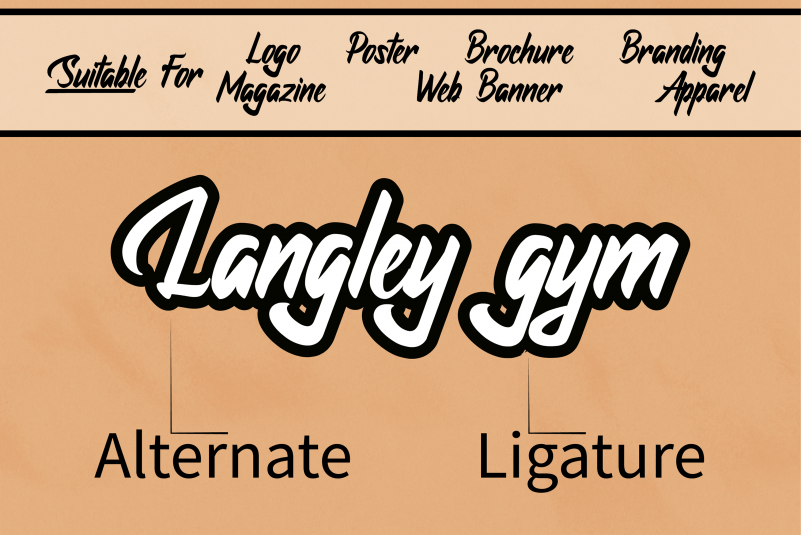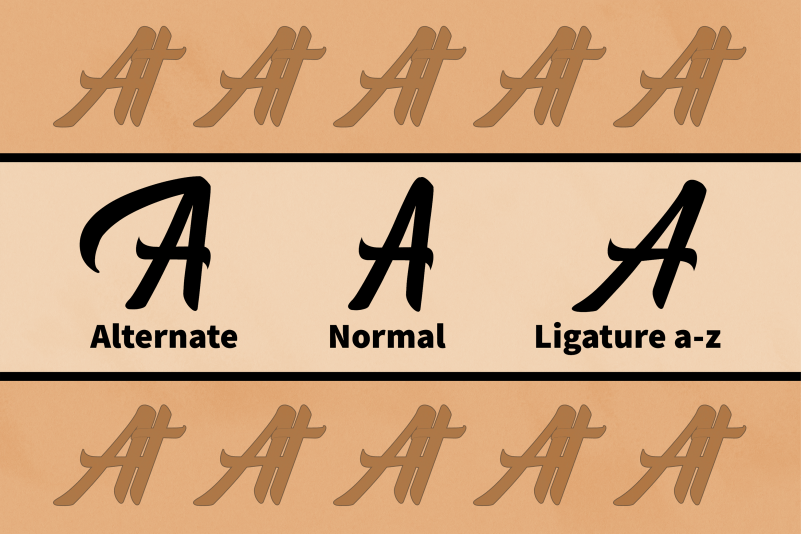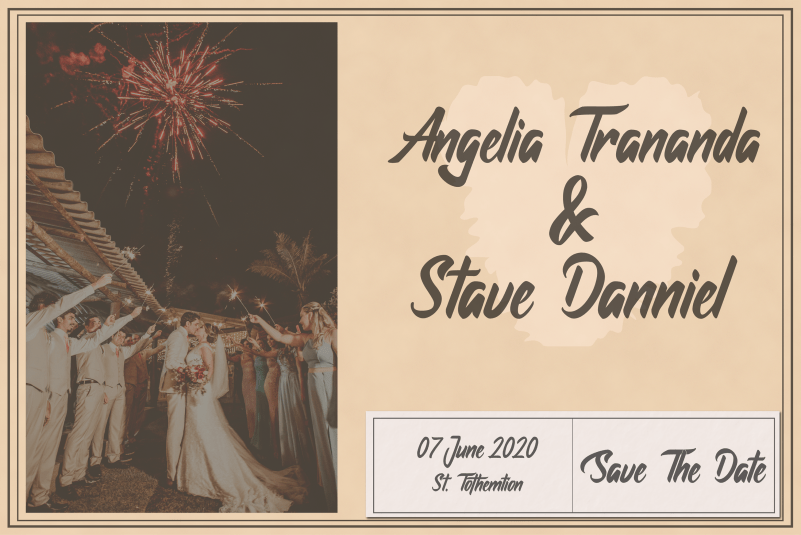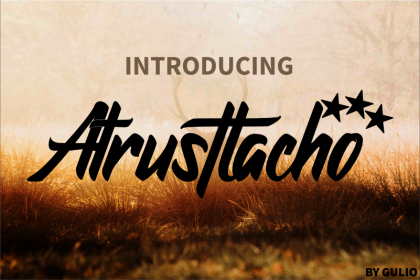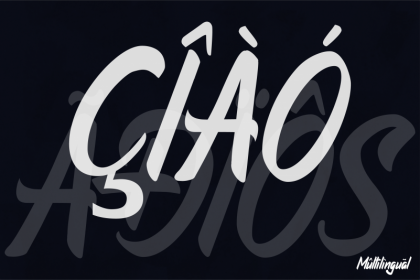
Atrusttacho Awesome Font
Atrusttacho is a unique touch font that has the same slope consistency. This is supported by the letter A which is made ligatures with the lowercase of a-z. Atrusttacho font very suitable for logos, magazines, brochures, posters, clothing designs, web banners, and other design projects.
-Lowercase & Upercase
-Punction & Numbers
-Multilingual support (Lowercase & Upercase + Symbol)